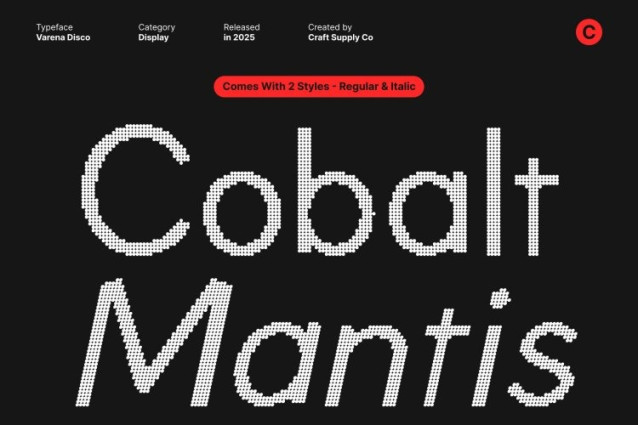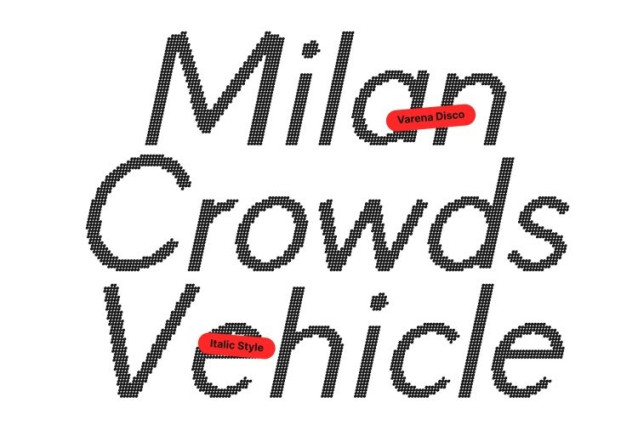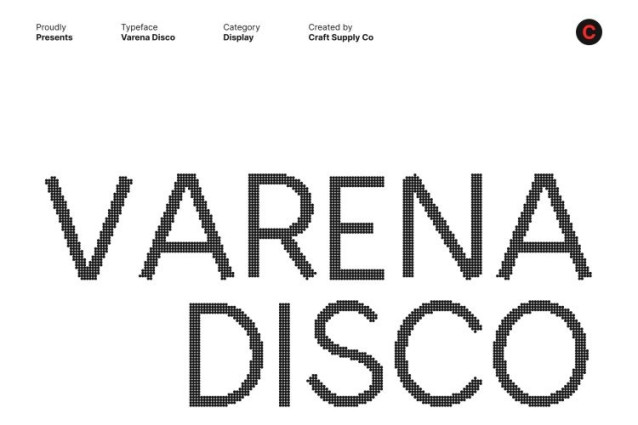
Varena Disco Font
Varena Disco Font This is a sleek and modern sans serif font crafted to deliver clean readability and a polished, professional look. Its refined letterforms emphasize clarity and structure, making it an excellent choice for designers who value simplicity with visual impact. This minimalist foundation ensures the font remains versatile across a wide range of creative and corporate applications.
Clean Lines for Contemporary, Stylish Designs
The smooth, geometric shapes of create a balanced and sophisticated appearance. Its streamlined construction enhances legibility, allowing it to work beautifully in both large headlines and smaller text compositions. This modern restraint gives the font a timeless quality while maintaining a fresh, current aesthetic.
Disco Sparkle Effect for Glamour and Visual Shine
Adding a bold twist, the disco sparkle effect introduces dynamic shimmer and energetic movement to each character. This glamorous detail elevates the font beyond simple modernity, giving your designs an eye-catching and memorable finish. The combination of clean structure and sparkling flair makes this font both professional and playful.
Perfect for Editorials, Logos, and Branding Projects
This font thrives in editorials, logos, branding projects, posters, digital graphics, and stylish promotional materials. Whether you’re crafting a sleek brand identity or designing visually polished layouts, this font offers the perfect blend of modern clarity and glamorous sparkle.